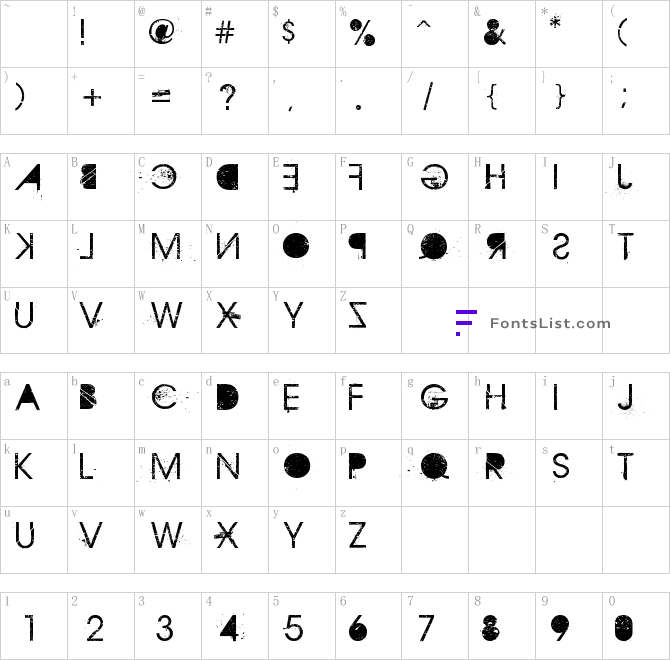
- Font Name:Aristotle Punk
Aristotle-Punk-copy-1-.ttf is a very beautiful artistic font, Aristotle-Punk-copy-1-.ttf is widely used in the design and printing of various books and pictures,Aristotle-Punk-copy-1-.ttf has a strong visual impact,Aristotle-Punk-copy-1-.ttf is a commonly used font in newspapers, magazines and books, and is used in posters, e-commerce Poster design, store design, logo design, font design and other fields.Aristotle-Punk-copy-1-.